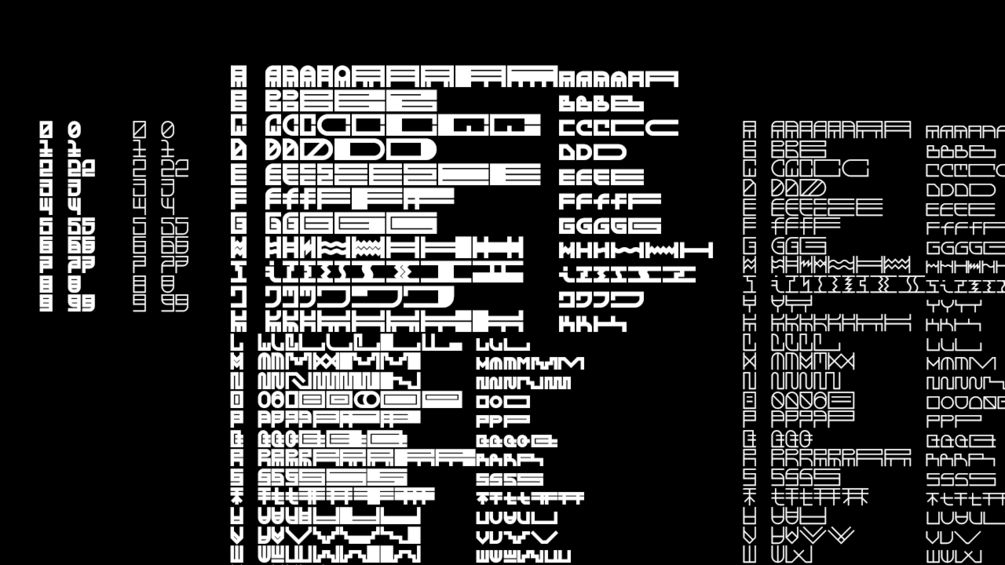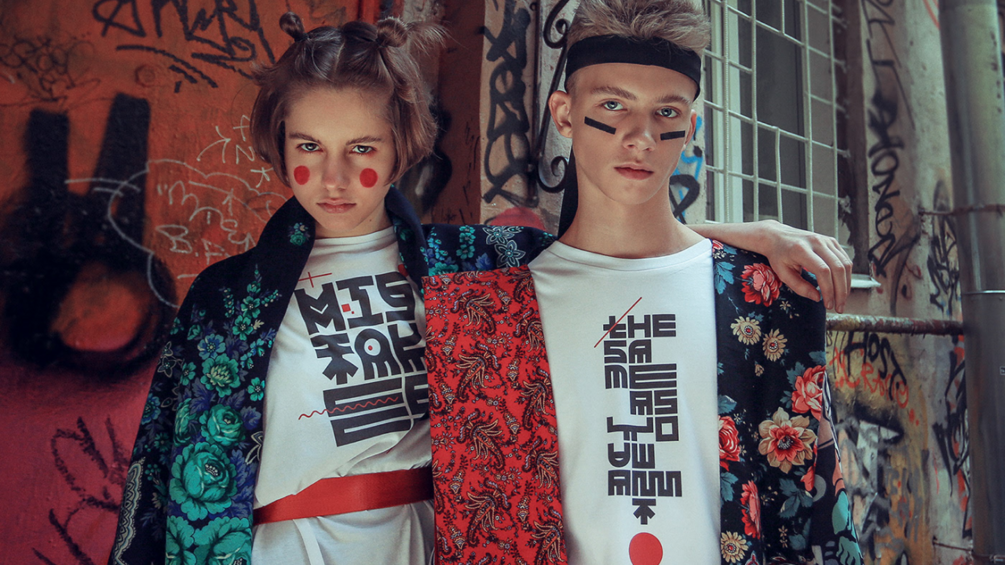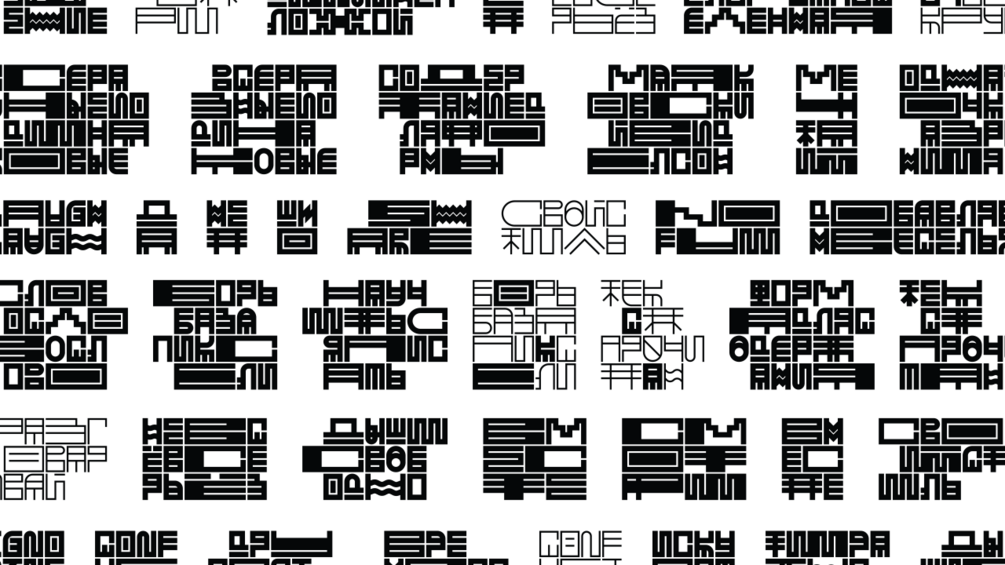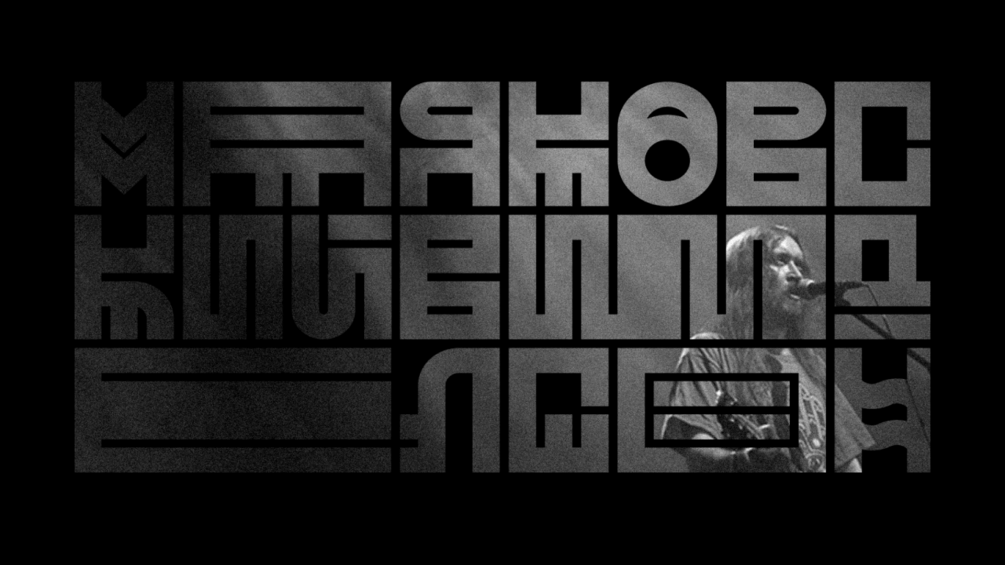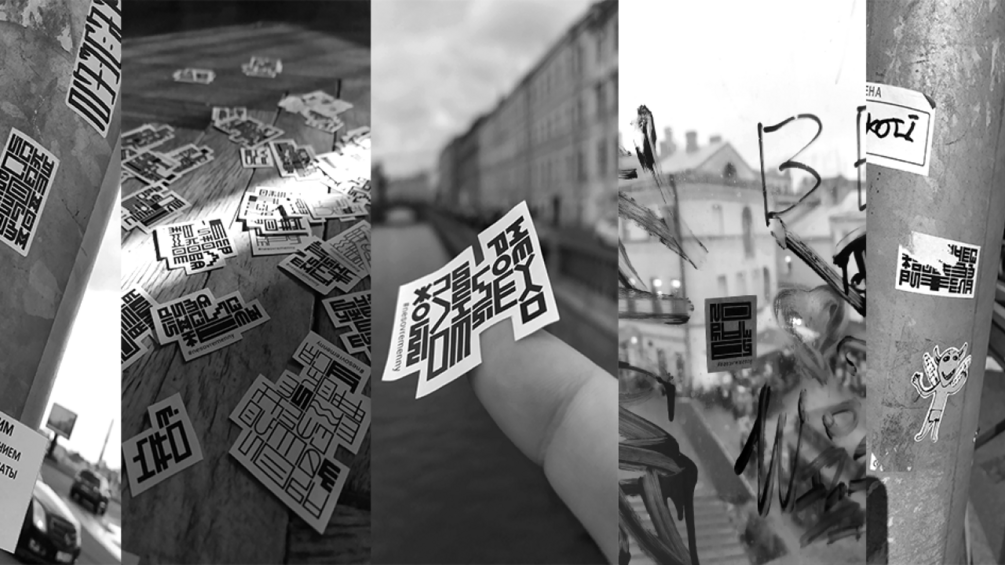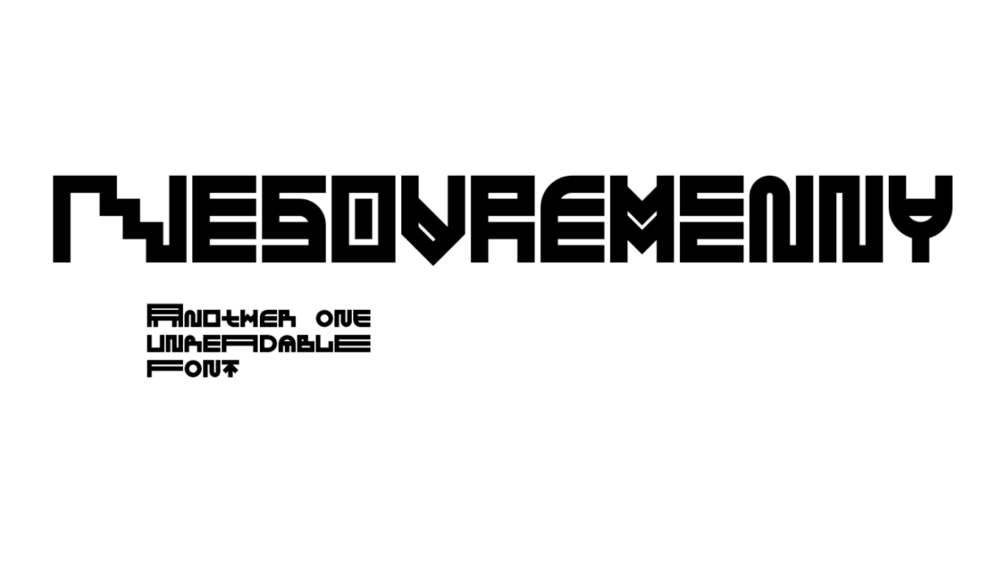
Nesovremenny - free font
Alexey Atapin
An accident type family. Free for personal and commercial use. Bold + regular. Latin and Cyrillic glyphs included.
Each of the characters has several alternates. Using them, you are able to create unique text patterns. You can leave your own message with the font but people should think to understand it.